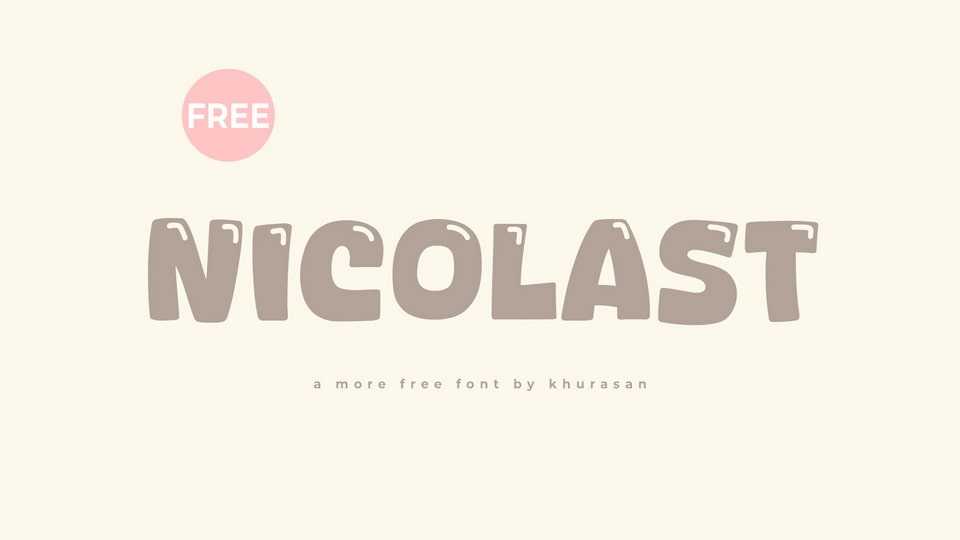
Download Nicolast font, a bold and shiny handcrafted cartoon typeface that brings a burst of energy and vibrancy to your designs. The font is crafted with bold strokes and glossy accents, creating a playful and eye-catching aesthetic reminiscent of classic cartoons.